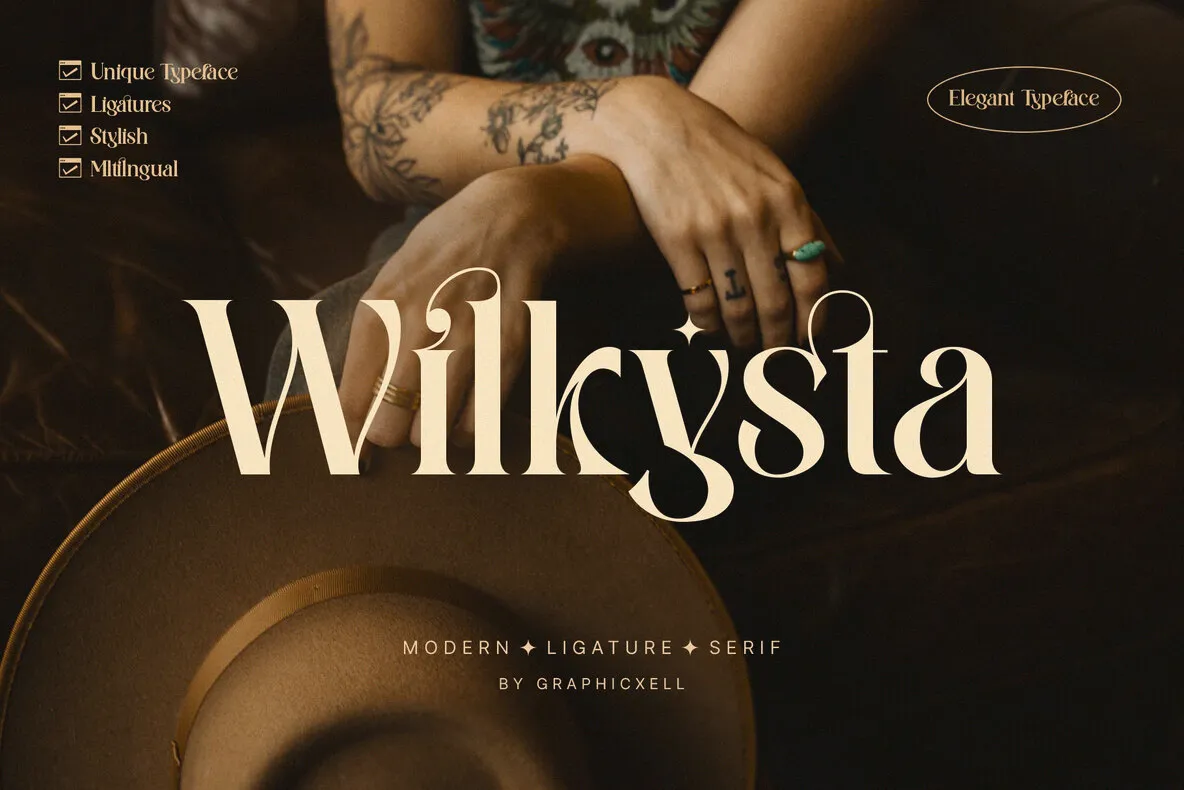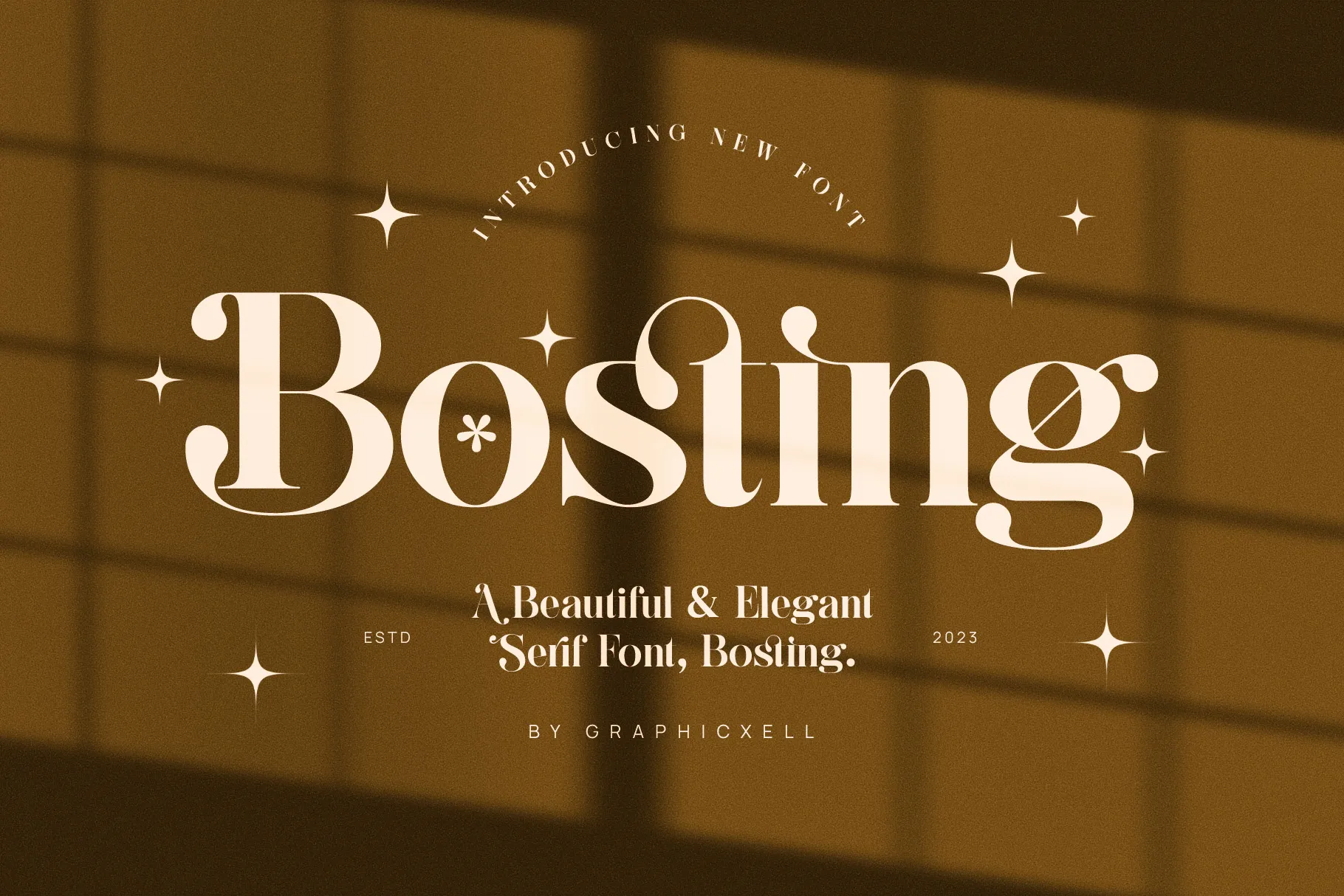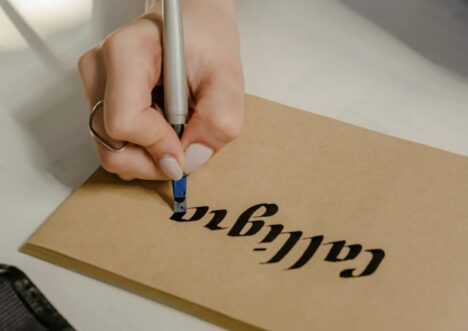
The world of design is about creating visual experiences that resonate with the audience. Modern calligraphy fonts, with their elegant swirls and captivating letterforms, can transform your designs from ordinary to extraordinary.
These fonts, in particular, offer a unique blend of traditional artistry and contemporary style, making them ideal for various applications. They can leave a lasting impression, from branding and logos to wedding invitations and social media posts. Let’s explore the characteristics of modern calligraphy typography and find out how to effectively use them in branding.
Unlike traditional calligraphy fonts that may feel rigid, modern fonts offer a fresh twist. They march in sharp lines, with bold contrasts and crisp serifs. Meanwhile, calligraphy fonts boast varying stroke thickness and flourish with extended beginnings and endings, creating an elegant, handwritten look.
So, modern calligraphy typefaces are a vibrant, stylish option for adding a contemporary feel to your projects. They bring a sense of creativity that makes your designs stand out. The combination of sharp lines and elegant curves in these fonts creates a beautiful harmony that appeals to wide audiences.
When using modern calligraphy typography in your branding, consider the overall tone and message you want to convey. For instance, a sleek, minimalist logo paired with a refined calligraphy font can communicate professionalism and class. On the other hand, using a bold, artistic calligraphy font can add a touch of creativity and uniqueness to your brand.
Selecting the right modern calligraphy font for your design is crucial to achieving the desired look and feel. Follow this simple roadmap to guide you:
Modern calligraphy fonts come in many styles. Do you want something bold and energetic, or soft and romantic? Choose a font that complements the overall mood of your design.
While aesthetics are important, prioritize fonts that remain legible, especially for larger portions of text. Look for fonts with clear letter spacing and a balanced weight between thin and thick strokes.
Think about how you’ll use the font. Some fonts are ideal for headlines, while others work best for short bursts of text. Choose a versatile font that can adapt to various applications within your design.
For a truly unified look, pick a font that plays nicely with the other design elements like images, colors, and layout. The right font can elevate the entire design by creating a sense of visual harmony.
Follow these best practices to maximize the impact of modern calligraphy fonts in your designs:
Using too many fonts in a single design can create a cluttered, confusing look. Stick to one or two main fonts, with a maximum of three, to maintain a clean and cohesive aesthetic.
Modern calligraphy fonts often shine with strategic color application. Play with contrasting colors or experiment with subtle gradients to enhance their impact.
Modern calligraphy typefaces are beautiful, but they can be challenging to read in large blocks of text. Use them sparingly for headlines, titles, or short phrases. For body text, consider using a more legible font.
Play around with different font sizes and spacing to find the optimal balance for your design. A little experimentation can go a long way in creating a visually appealing and impactful result.
Give your calligraphy font room to breathe by incorporating ample white space. This helps highlight the font’s intricate details and ensures it stands out in the design.
Finding the right modern calligraphy font is easier with the help of the right resources. Here are some recommended options:
This versatile serif boasts a modern calligraphy twist, with elegant curves and playful flourishes that add a touch of whimsy. It will grace your branding materials, adding a touch of personality to logos, or making a grand entrance on wedding invitations.
Gingko is a breathtaking blend of elegance and whimsy. Its flowing strokes and exquisite details are perfect for crafting wedding invitations, luxurious brands, or any project that demands a touch of magic.
If you’re feeling sophisticated, then Voting is your calligraphic soulmate. This sophisticated serif adds a touch of class to any design, with its graceful curves and subtle flourishes. Think high-end branding, logos that command attention, or marketing materials that scream professionalism. Voting will make your design stand out, leaving a lasting impression on your audience.
Craving a touch of vintage charm with your modern edge? Look no further than Wilkysta. This font is a masterclass in marrying the past with the present. Its flowing strokes and delicate details create a timeless elegance that’s perfect for branding, logos, or invitations that want to tell a story.
Yearning for a sprinkle of timeless grace with a modern edge? Rastings Macker have you covered! This elegant serif combines a timeless aesthetic with a touch of contemporary flair. Its flowing lines and subtle flourishes make it a versatile choice for branding, logos, or even wedding invitations that want to hint at a timeless love story.
The world of modern calligraphy fonts awaits your exploration. Each font offers a unique personality, ready to elevate your design and tell your story in a captivating way. So, unleash your inner creativity, dive into these typographic treasures, and get ready to create designs that leave a lasting impression!